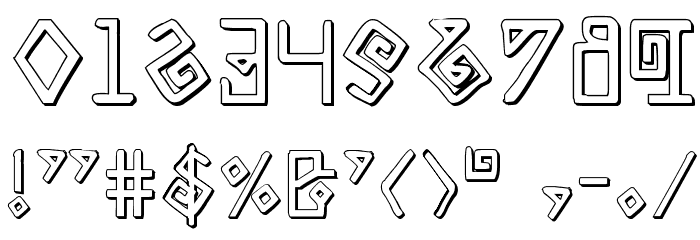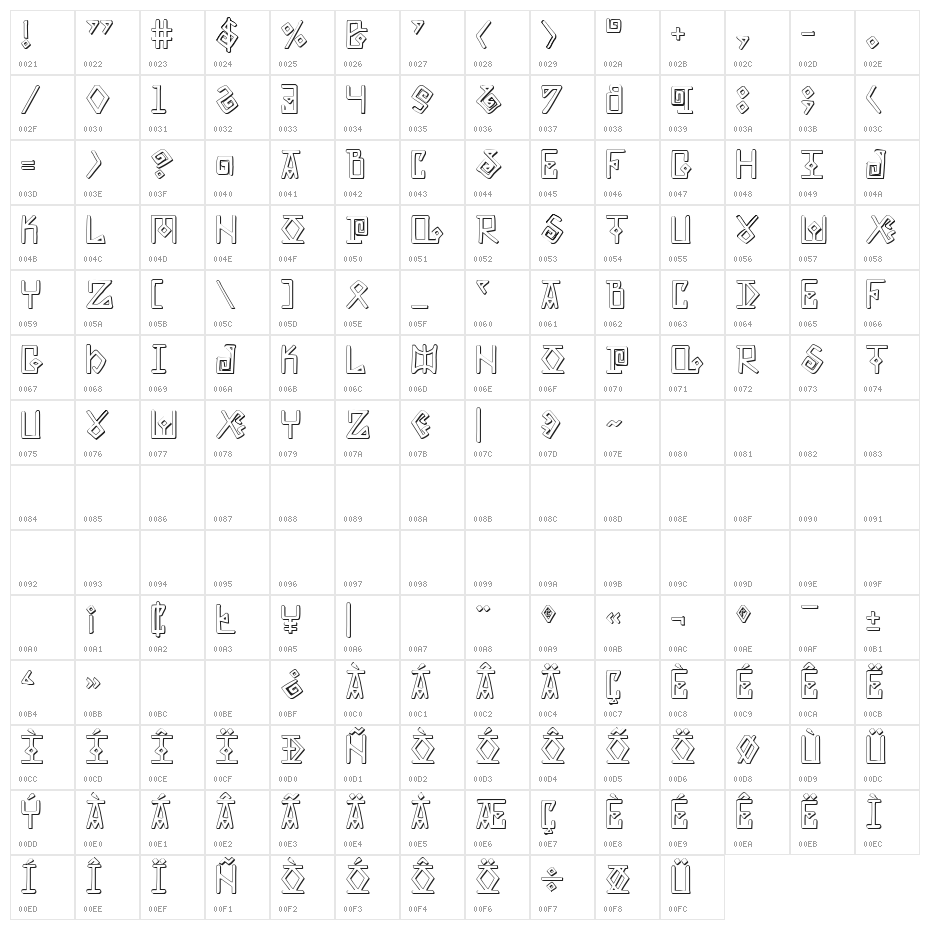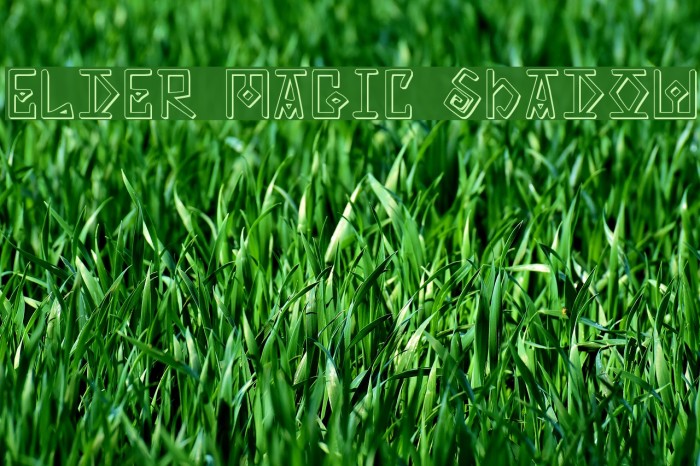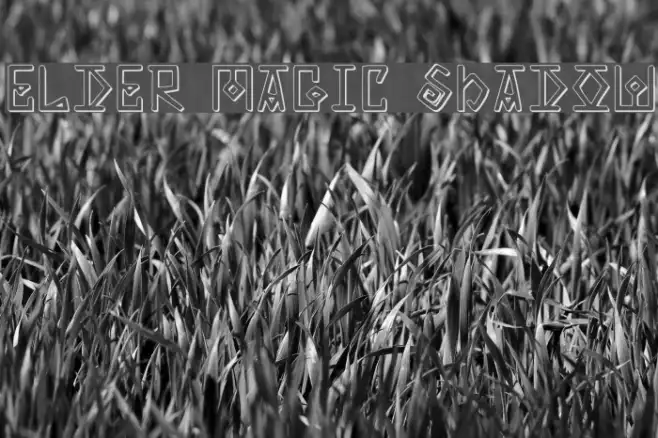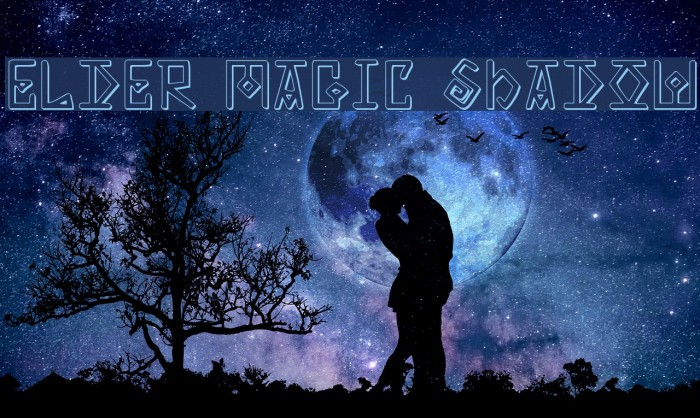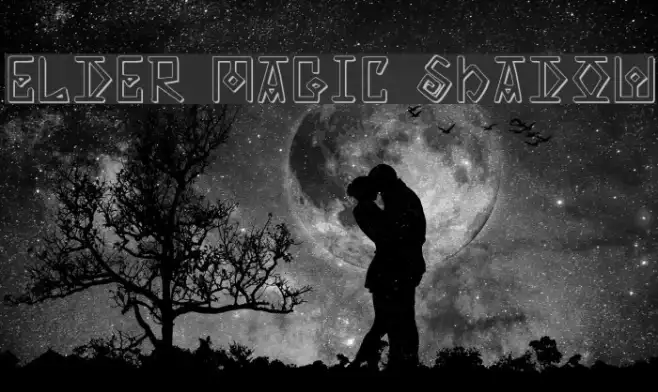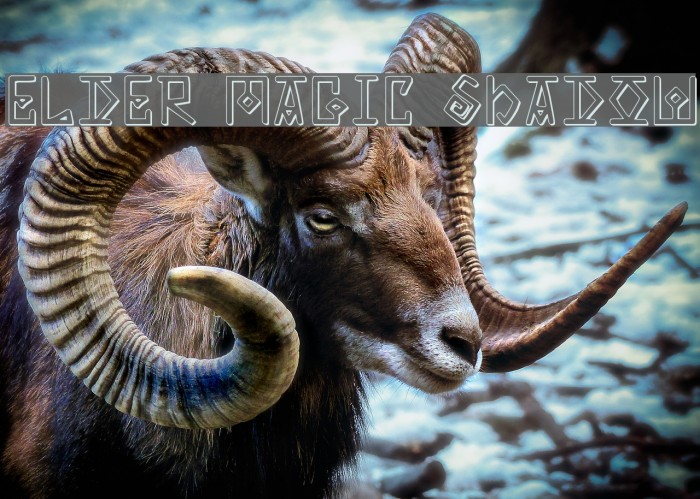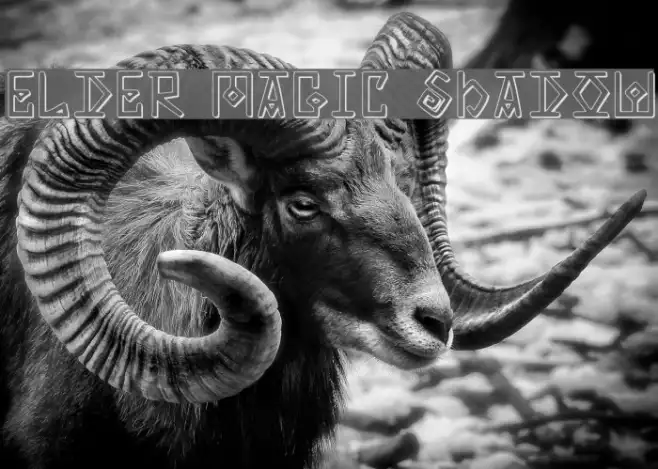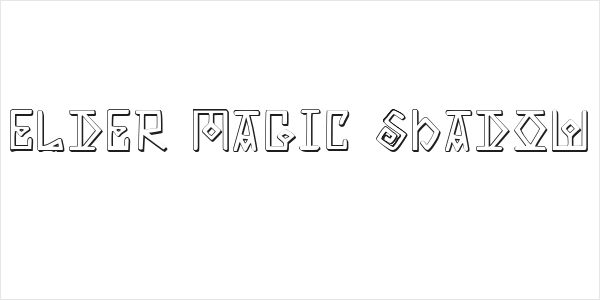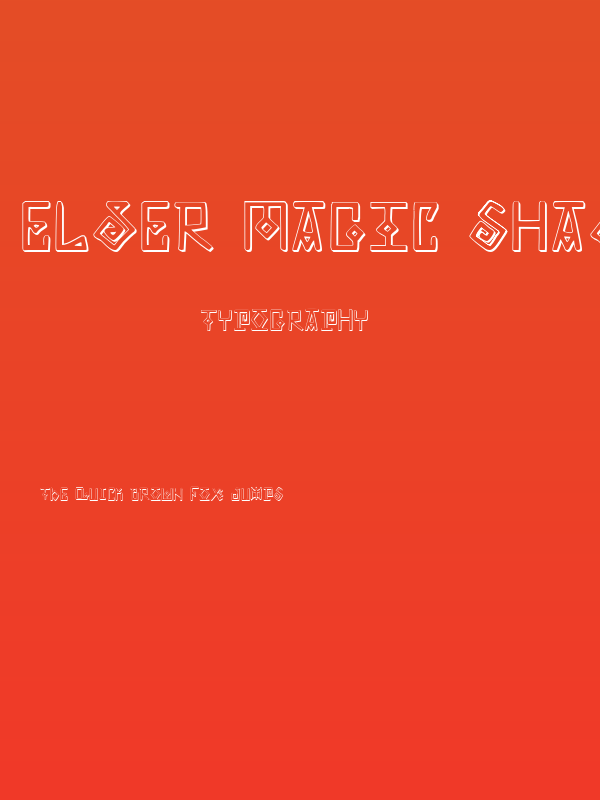
Elder Magic Shadow Font
Elder Magic Shadow Description
This font features a unique and mystical design, characterized by its intricate geometric shapes and shadowed outlines. Each letter and number is crafted with a blend of angular and curved elements, creating a sense of ancient magic and mystery. The uppercase and lowercase letters maintain a consistent style, with decorative elements that resemble runes or symbols from a fantasy realm. The numbers and special characters follow the same aesthetic, ensuring a cohesive look across all glyphs. The font's bold outlines and shadow effects enhance its visibility and add depth, making it stand out in any design.
| Proposed Projects | Ideal for fantasy-themed projects, game titles, book covers, or any design requiring a magical or ancient feel. |